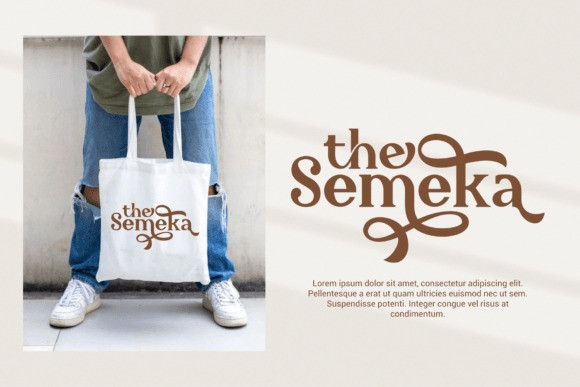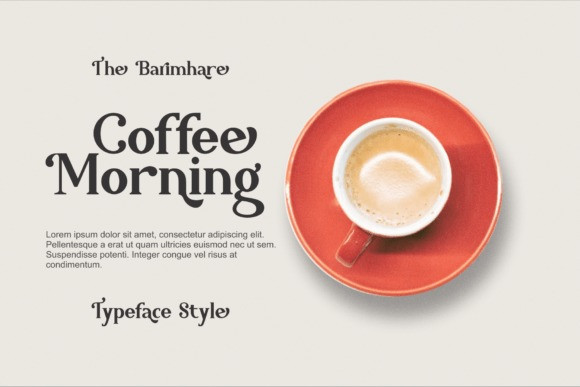
The Barimhare Font
The Barimhare Serif Font is a stylish and modern serif font. Its elegant and sophisticated style is perfect for creating feminine, chic designs. This font is PUA encoded which means you can access all the glyphs and ligatures with ease!